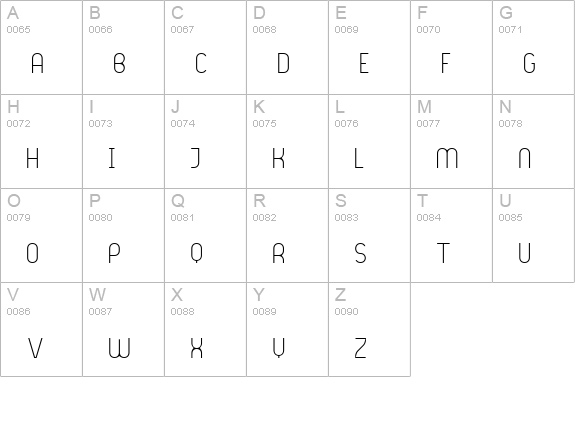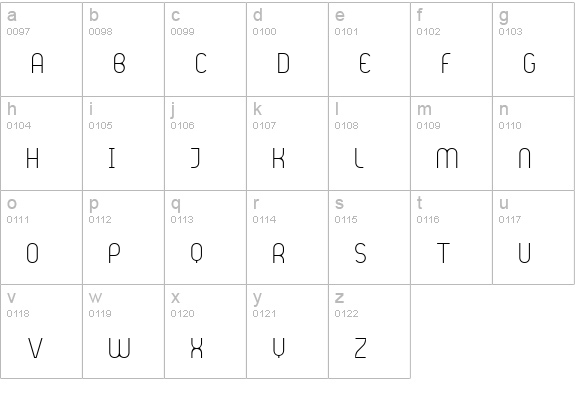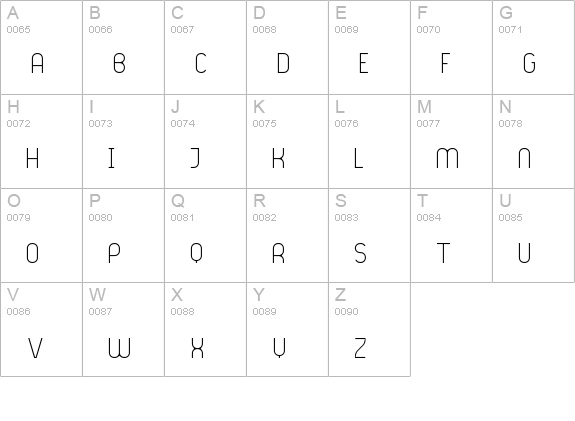
Mass Thin is a delicate, low-contrast variant in the Mass typeface family \xE2\x80\x94 well suited to fashion editorial, minimal branding, and high-contrast display.
Introducing Mass Thin, a remarkable font that effortlessly combines elegance and simplicity. This font is perfect for those seeking a sleek and modern aesthetic, with its thin and delicate letterforms that exude a sense of sophistication. Mass Thin offers a unique balance between legibility and style, making it suitable for a wide range of design projects. From branding and logo design to editorial layouts and web graphics, this font will elevate any composition with its clean and refined appearance. What sets Mass Thin apart is not only its visual appeal but also its availability as a free download. That's right, this stunning font can be easily accessed and enjoyed by designers and creatives alike at FontsMarket.com. This user-friendly platform ensures that everyone can benefit from the versatility and beauty of Mass Thin, making it an invaluable addition to any font collection. With its sleek and slender letterforms, Mass Thin brings a touch of sophistication to any project. Its delicate strokes and precise curves create a harmonious balance that is both visually appealing and easy to read. Whether used for headings, titles, or body text, this font will leave a lasting impression on any audience. So, why wait? Take advantage of the opportunity to enhance your designs with Mass Thin – a font that effortlessly combines elegance and simplicity. Download it for free today at FontsMarket.com and unlock a world of creative possibilities.